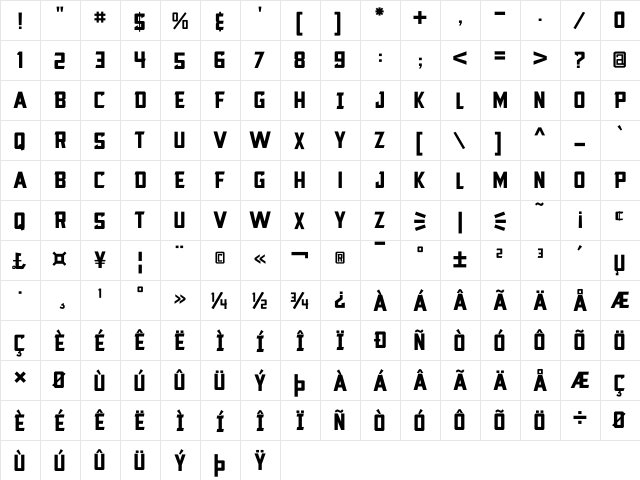
Fatcat Regular
| Foundry | Jason L. Arthur |
| Designer | Jason L. Arthur |
Design Context for Fatcat Typeface
Fatcat is a composed and adaptable typeface that performs quietly and consistently across a wide range of design contexts.